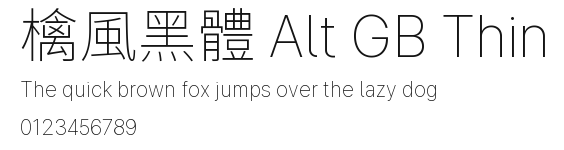
檎風黑體 Alt GB Thin Preview
About 檎風黑體 Alt GB Thin.ttf
檎風黑體 Alt GB Thin.ttf is a modern, elegant sans-serif font designed for ultimate readability and visual harmony. Perfect for branding, headlines, web design, and print materials.